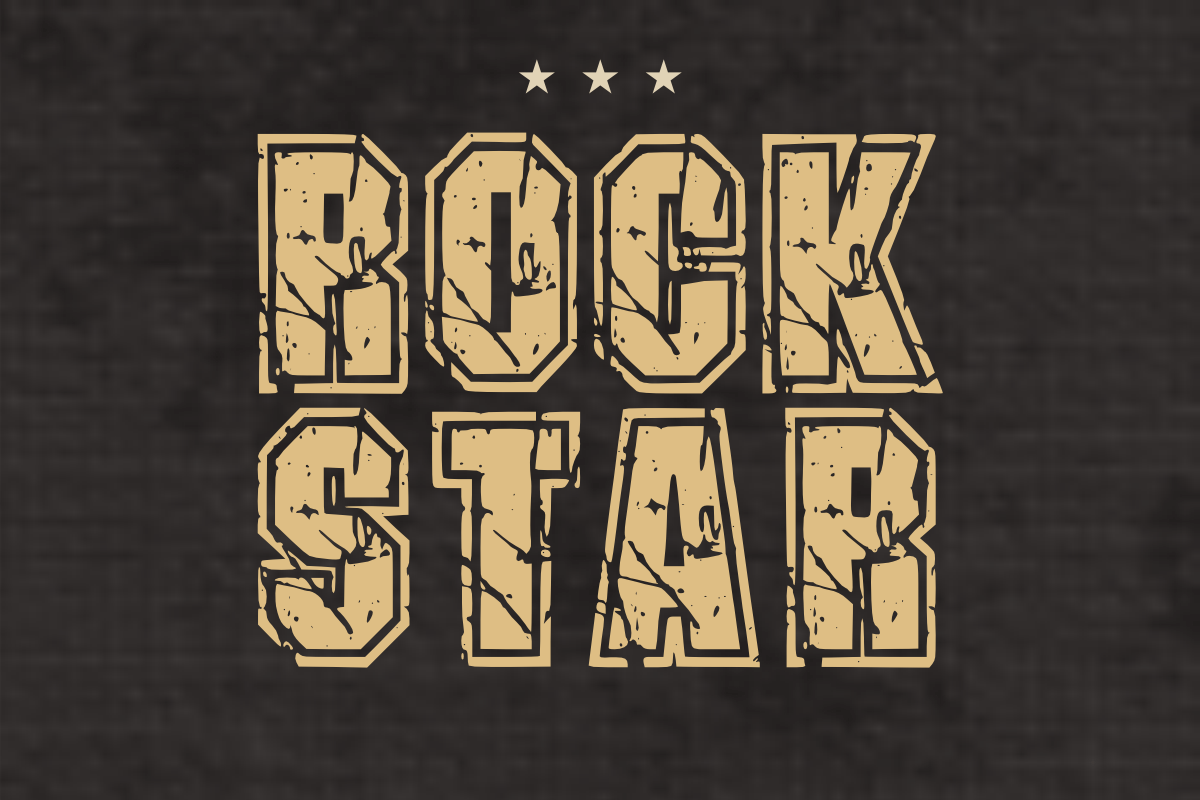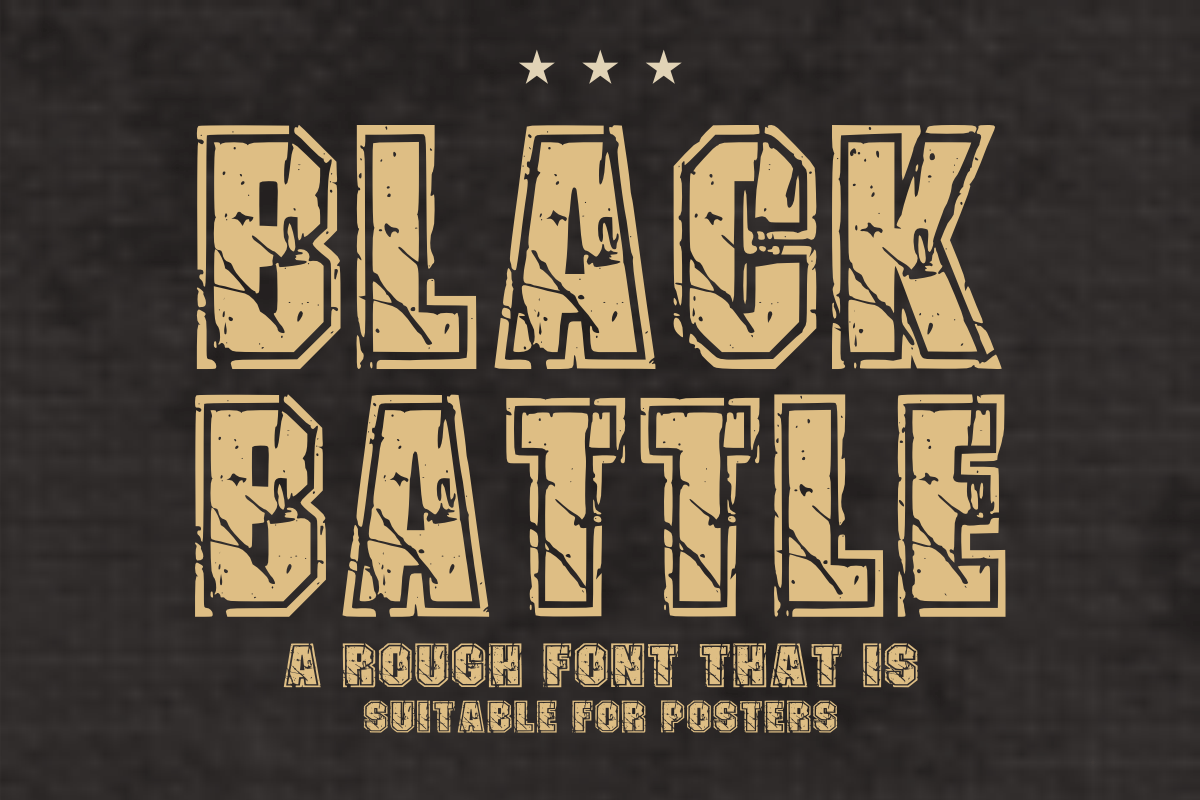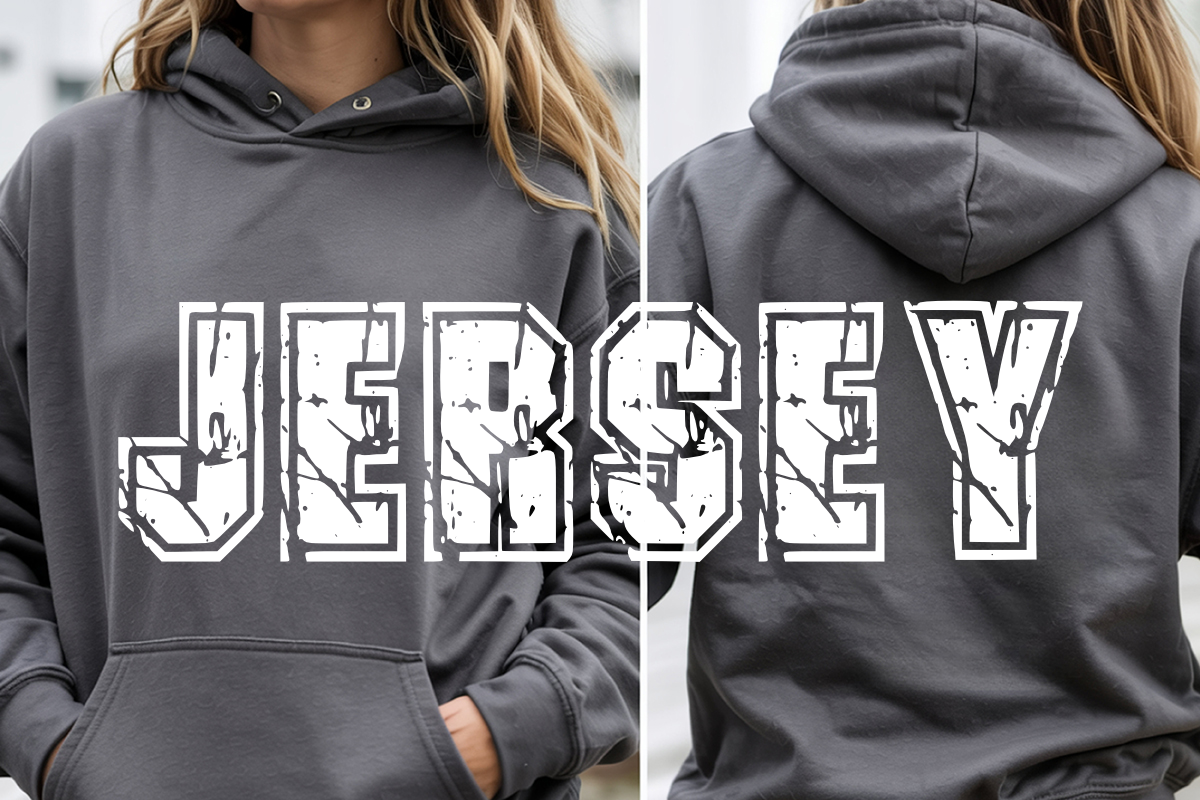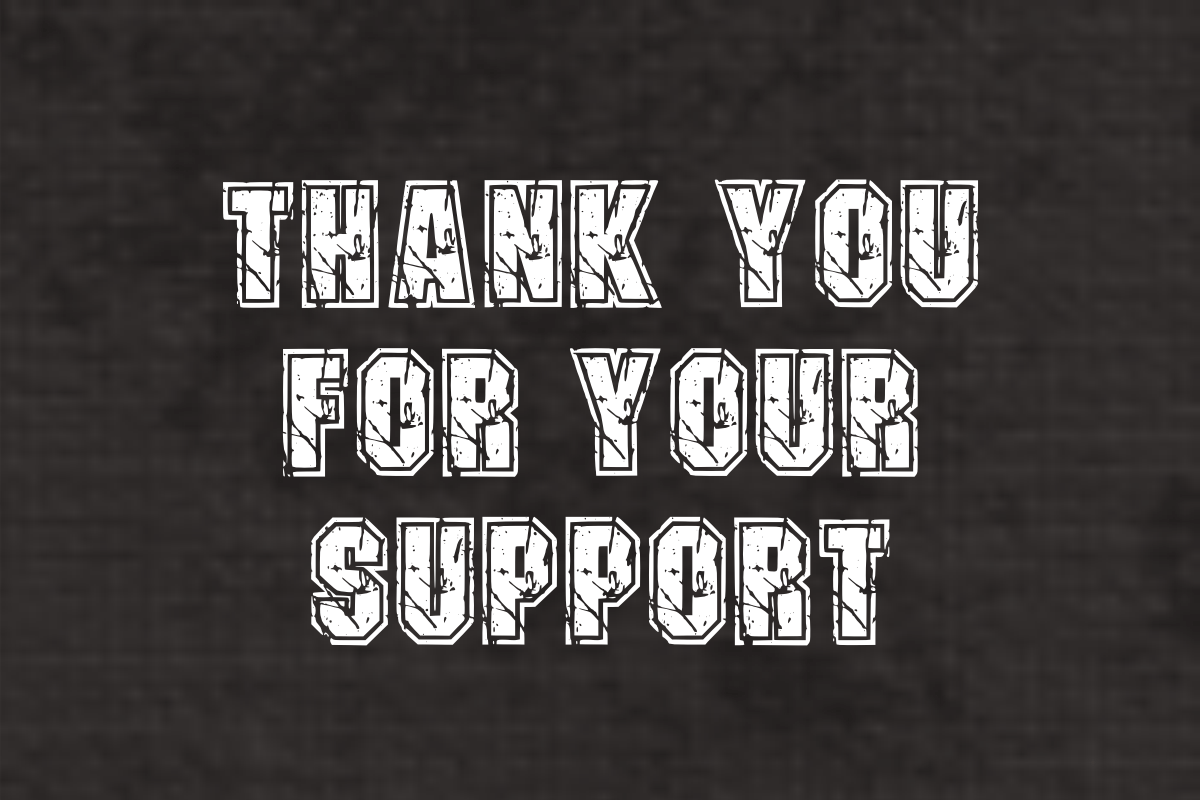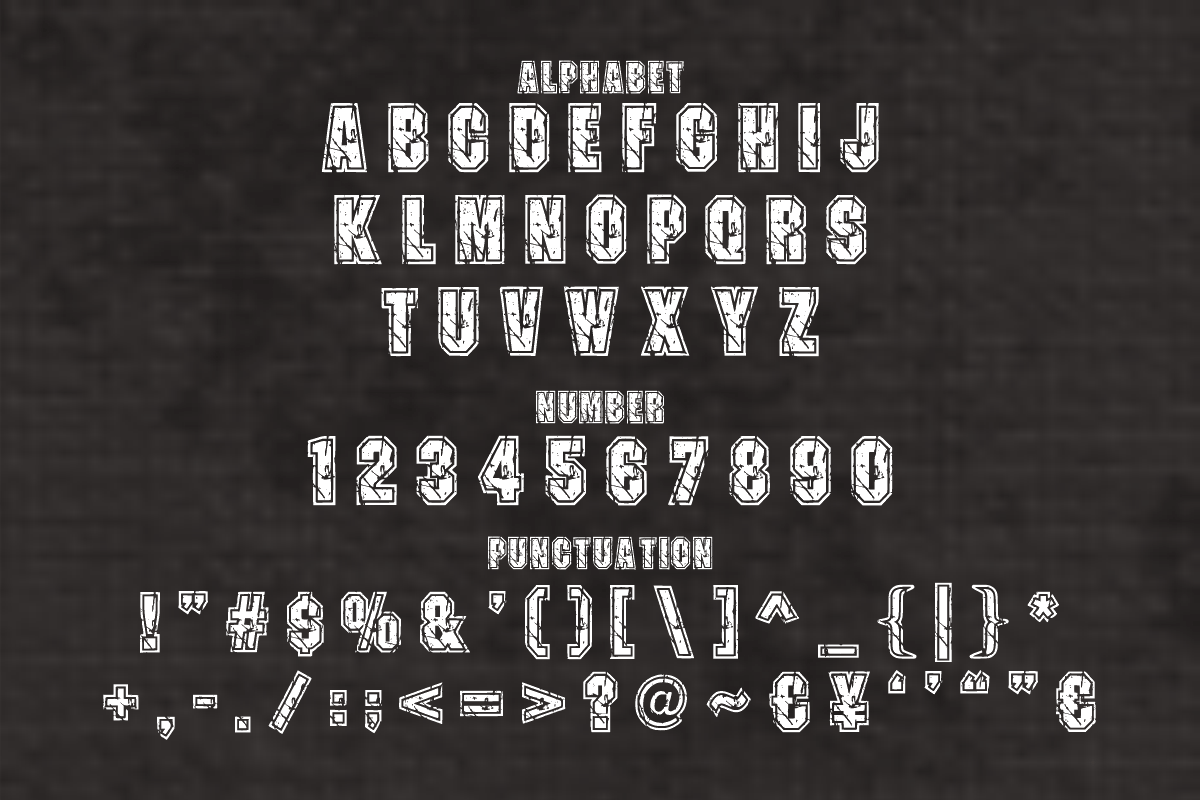
Black Battle - Rugged Display Font
Ready to add some serious power and grit to your layouts? Black Battle is a premium, ultra-bold display font featuring a heavy block structure and an authentic, deeply distressed grunge texture. It masterfully blends the high-energy vibe of a vintage sports team with a rugged, military-grade combat aesthetic.
No need to waste time overlaying textures—this font comes with built-in weathered cracks and grit, engineered to make your headlines look exceptionally tough and powerful instantly!
✨ What’s Packed in the Playbook:
_ 🔠 _\Bold Uppercase Letters (A-Z)\\* – Heavy block style with a striking weathered/cracked texture.
_ 🔢 _\Matching Numbers (0-9)\\* – Perfect for rugged jersey numbers, countdowns, and vintage stats.
_ 🔣 _\Simple Symbols & Punctuation\\* – Essential characters to easily finish your bold phrases.
🎯 Perfect For Making a Powerful Statement:
\* 👕 Rugged T-Shirts, Streetwear Brands, Biker & Gym Apparel
\* 🥊 Boxing, MMA, Tactical, or Extreme Sports Branding & Logos
\* 🪖 Military-Inspired Graphics, Badges, and Emblem Designs
\* 🎨 Gritty Retro Posters, Rock Album Covers, and Event Flyers
\* 🪵 Outdoor Adventure, Craft Brewery, and Wood-Type Packaging